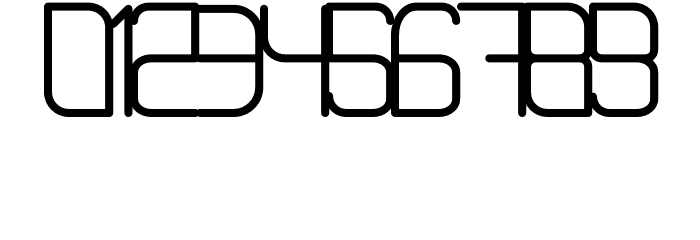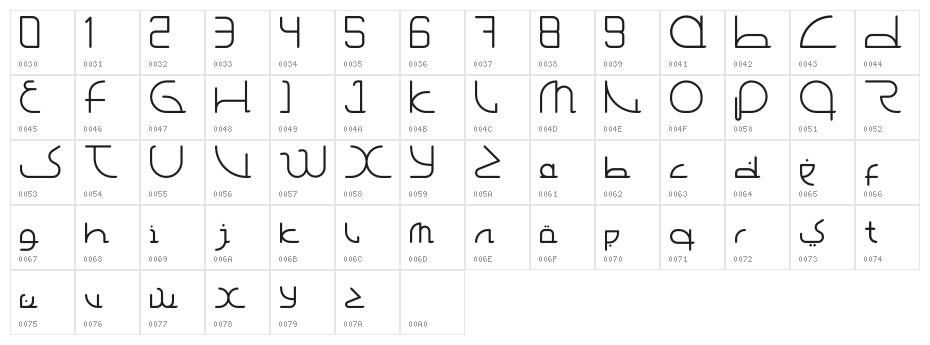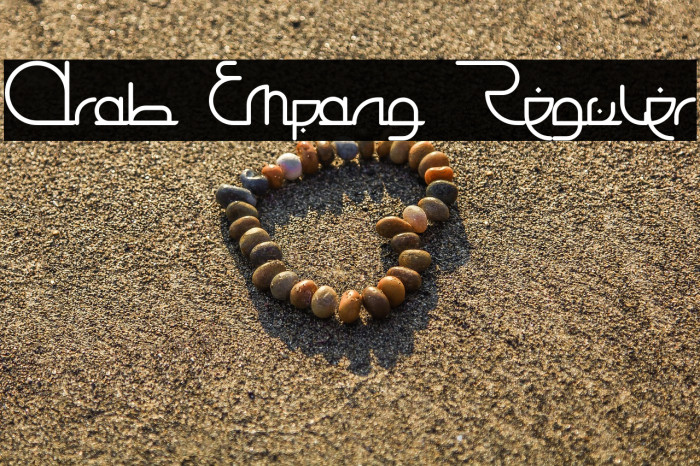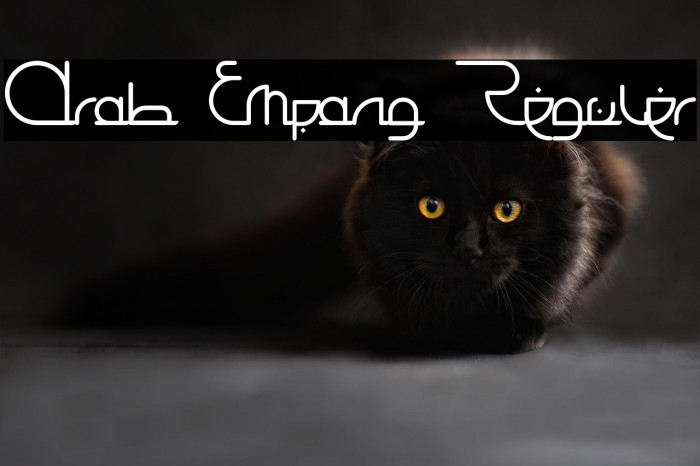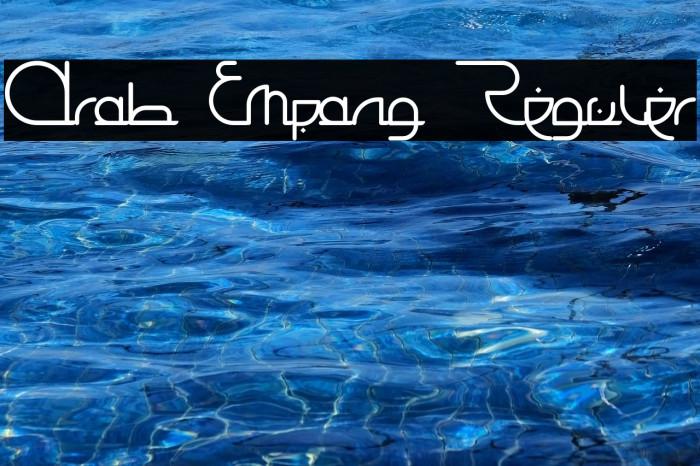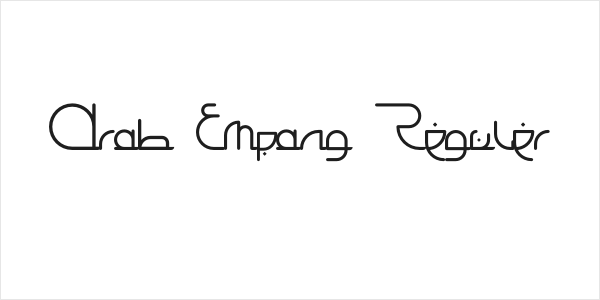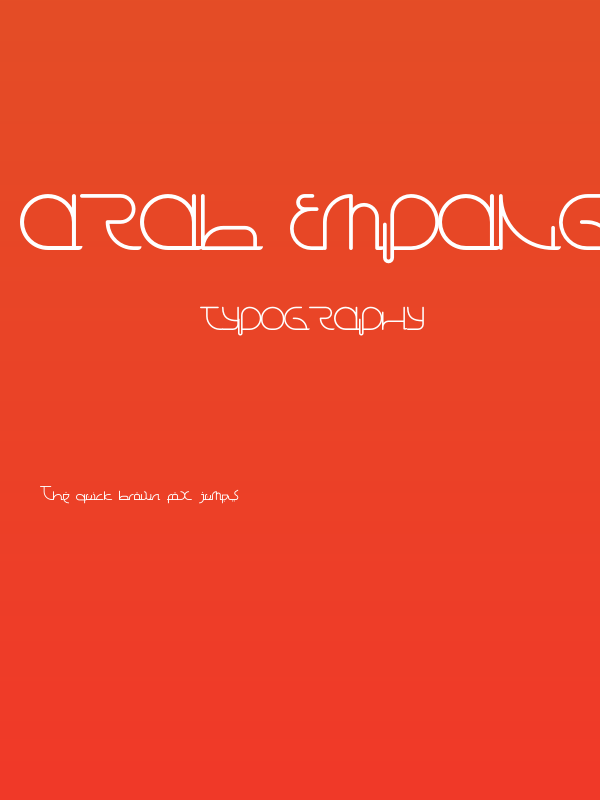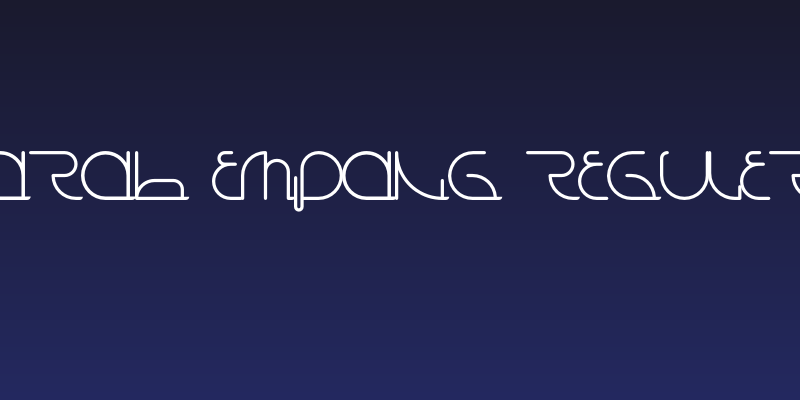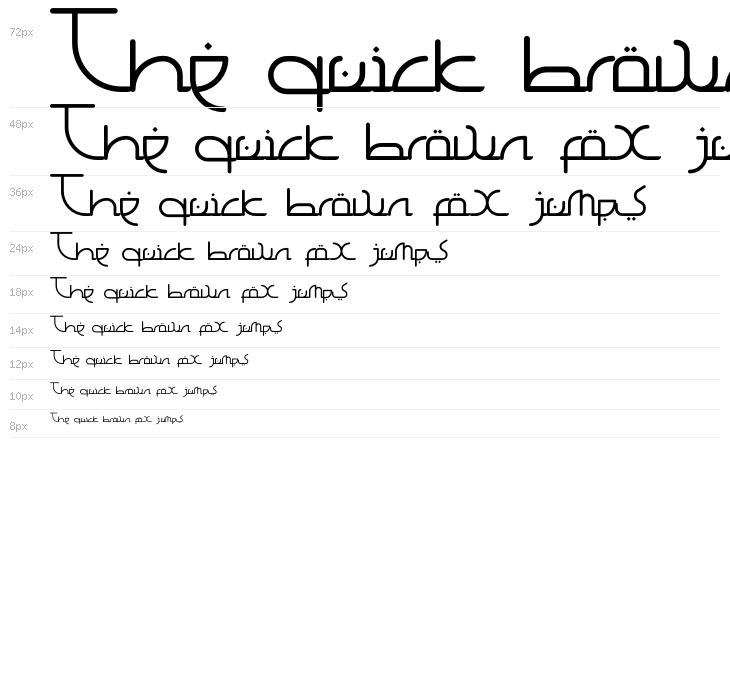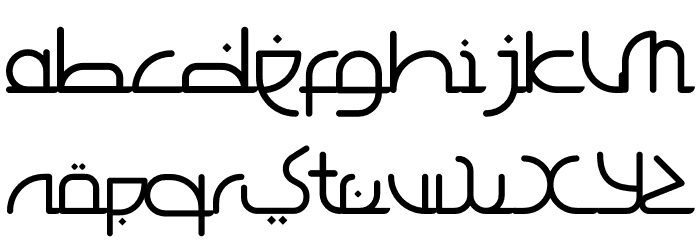
Arab Empang Reguler Font
Arab Empang Reguler Description
This font features a unique and modern design with a geometric and futuristic aesthetic. The characters are constructed with clean, continuous lines that form rounded and angular shapes, creating a sense of fluidity and movement. The uppercase and lowercase letters share a consistent style, with some characters exhibiting a distinctive looped or connected appearance. The numerals and special characters maintain the same design principles, ensuring uniformity across the typeface. This font's innovative style makes it suitable for creative and contemporary projects.
| Proposed Projects | Ideal for branding, logos, posters, and digital media projects that require a contemporary and innovative look. |